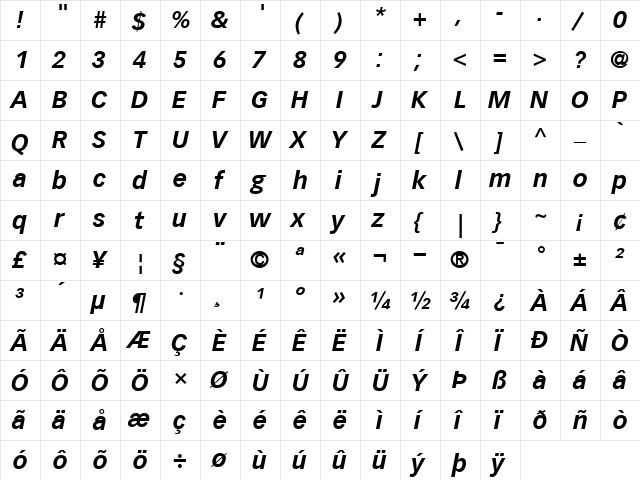
VectoraLH76 BoldItalic
Design Context for VectoraLH76 Typeface
VectoraLH76 offers clean, dependable letterforms without strong stylistic allegiance, making it a practical choice for designers who need flexibility. The dynamic lean of this cut emphasises speed and emphasis in any layout. Its bold stroke weight gives it real presence on the page.
Pro Tip: Try VectoraLH76 for annotation and caption copy alongside an upright companion — the contrast in angle creates a dynamic but ordered typographic system.